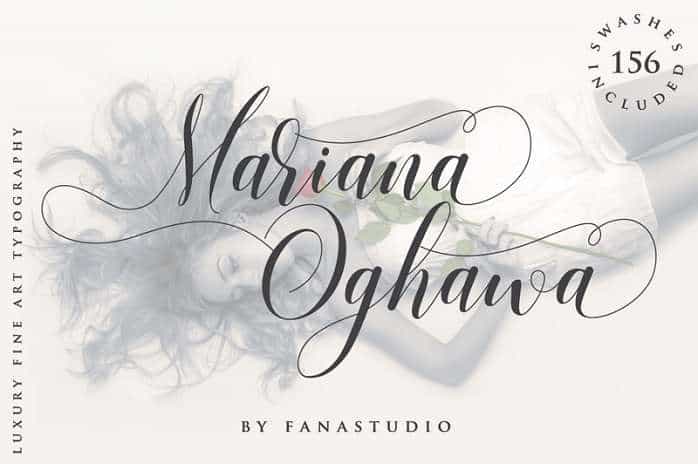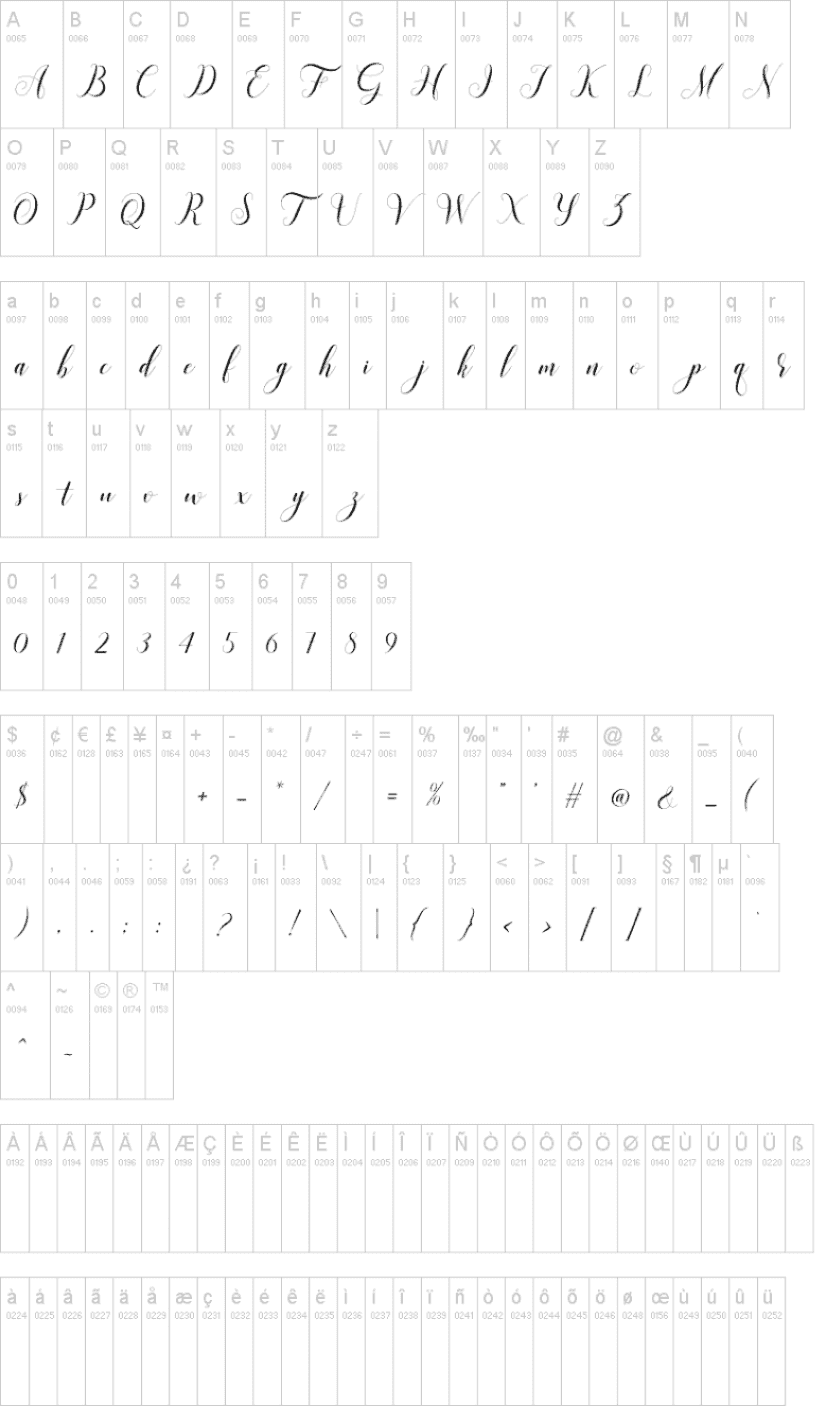
Discover Mariana Oghawa Font, part of the Calligraphy collection—a versatile and unique font perfect for adding a personal touch to your projects. Download it for free and enjoy crafting designs with style, from invitations to social media posts. This font is available exclusively for personal use, giving you the freedom to create without limits. Unlock your creativity with Mariana Oghawa Font today!
Cute Letters (with ‘P’), Mariana Oghawa by Fanastudio is a calligraphy font which can be obtained for free in its paid version and used for personal purpose. This version also includes all of the small letters, all of the big letters and some of the special signs.